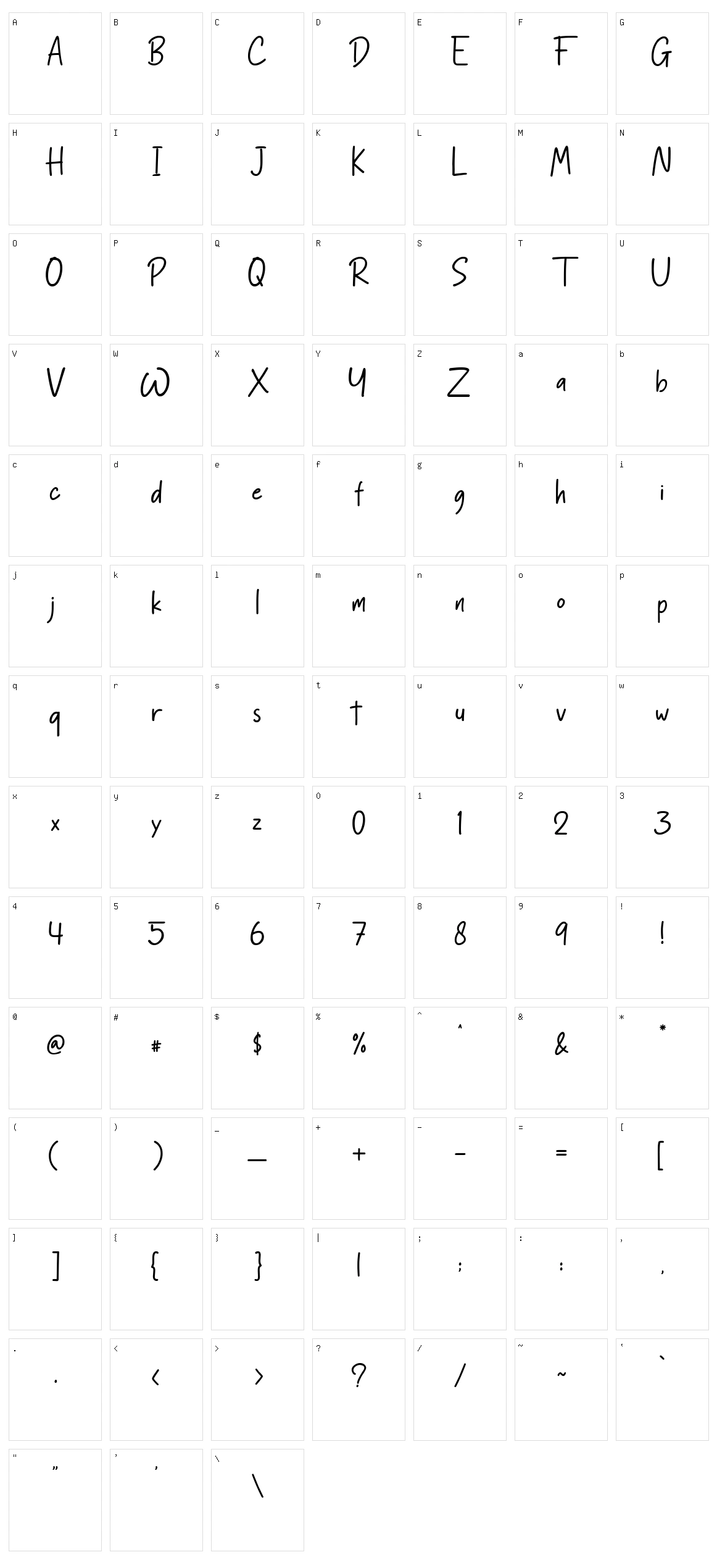
The free font Moonstone is carefully designed by Dav studio, showcasing a thoughtful balance of creativity and usability and falls under the Script font style. When you download the ZIP file, it contains only 78 KB of font files, making it lightweight and quick to download. Please review the license details below to understand permitted usage and distribution rights. If license information is not available, we recommend using this font for personal projects only or contacting the author directly for commercial usage permissions.